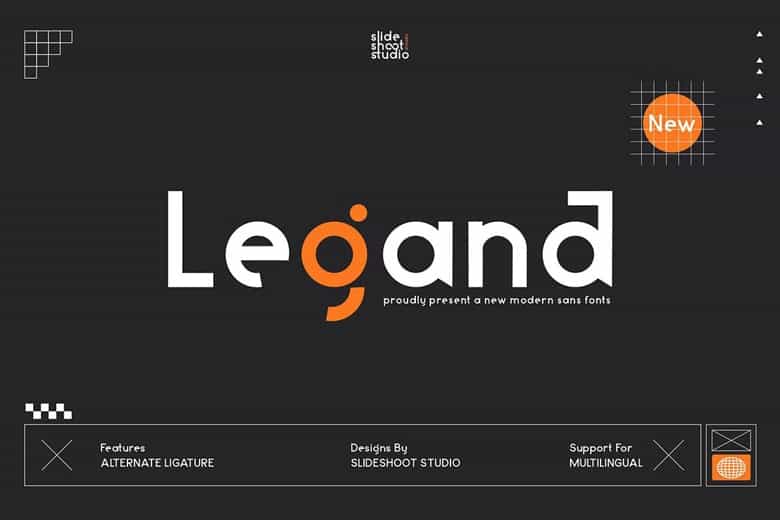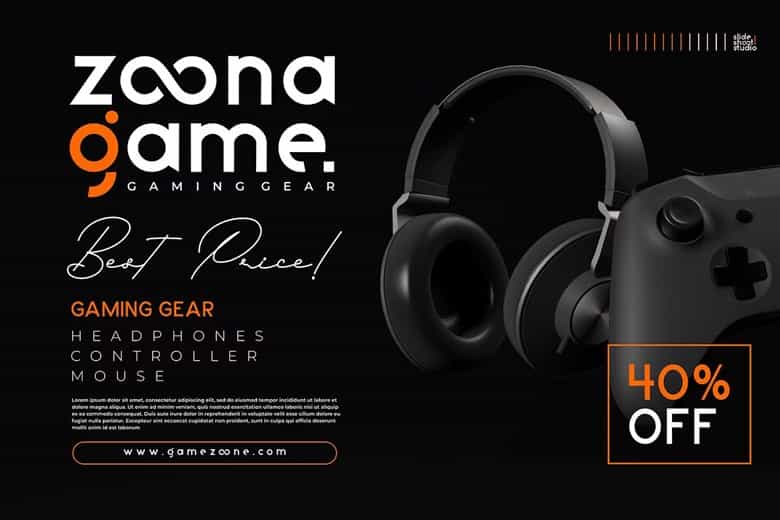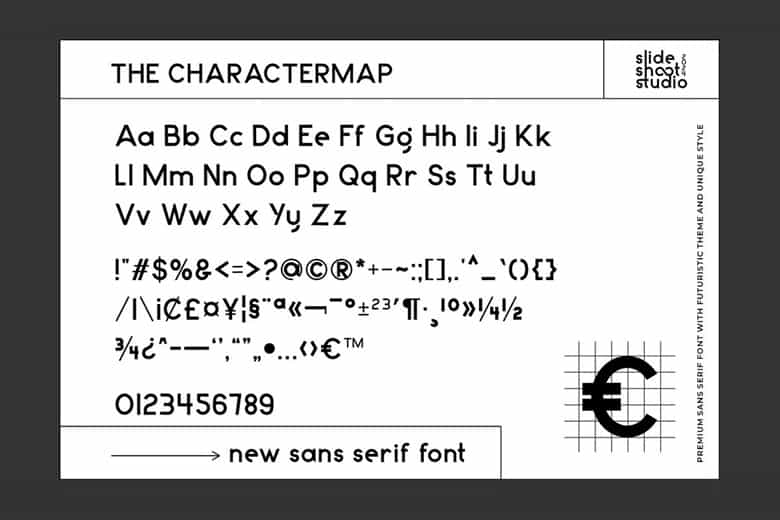
Legand is a new modern, elegant and futuristic sans serif font. This font is well suitable for use in invitation cards, branding, logos of companies or businesses, movies or shows, business cards, books or other publications, names of brands and many other purposes. The changes in style and the connections in this font make it a great companion for any work.